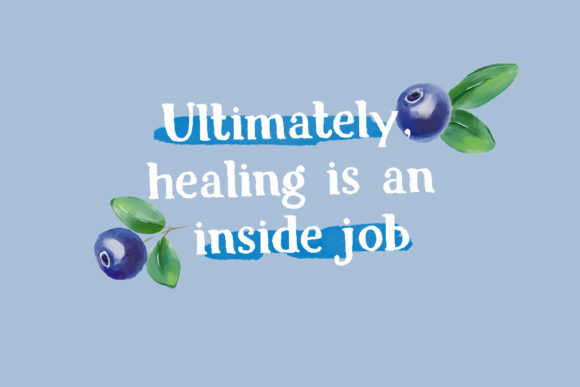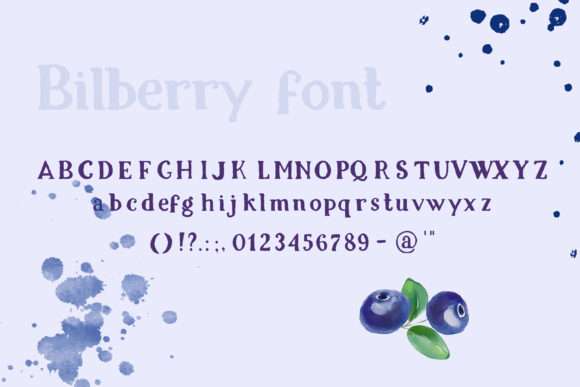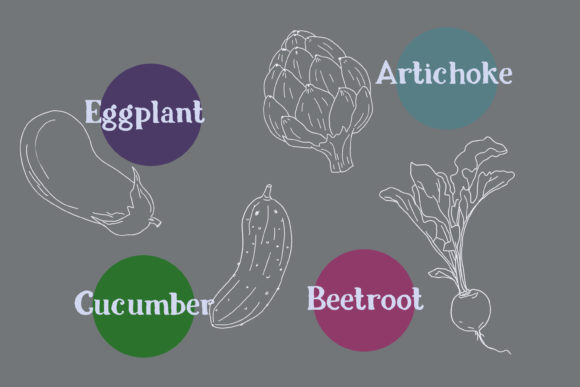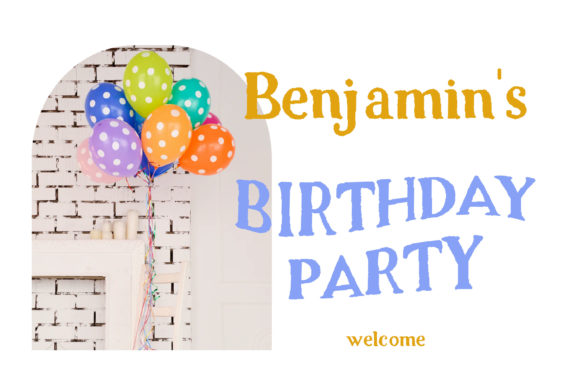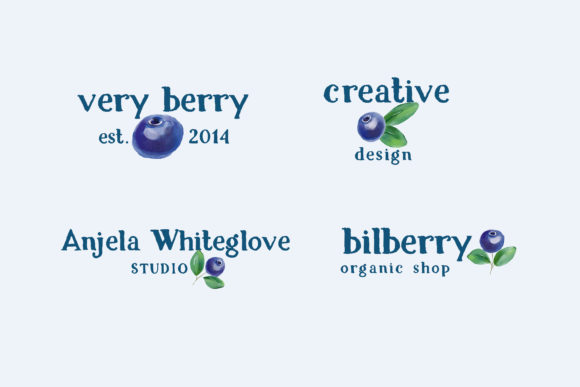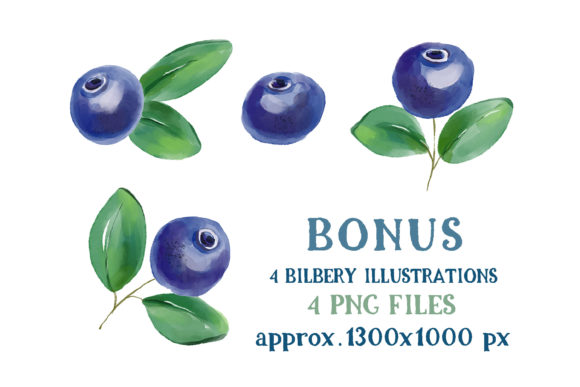
Bilberry Font: Elevate Your Designs with a Cool and Rough Textured Serif Font
In the world of typography, a font can make or break a design. It’s the perfect blend of form and function, conveying a message while evoking an emotional response. For designers and crafters looking to add a unique touch to their creations, Bilberry Font is an excellent choice. This cool and rough textured serif font is an incredible asset to any font library, capable of elevating any project to new heights.
What is Bilberry Font?
Bilberry Font is a serif font that boasts a distinctive, rough texture, giving it a charmingly imperfect feel. Its cool and rugged appearance makes it perfect for designs that require a touch of character and personality. Whether you’re working on a logo, heading, or body text, Bilberry Font is versatile enough to adapt to any topic or theme.
Key Features of Bilberry Font
- Rough Textured Appearance: Bilberry Font’s unique texture gives it a handmade, organic feel that’s perfect for designs that require a personal touch.
- Serif Style: The font’s serif style adds a touch of sophistication and elegance, making it suitable for a wide range of applications.
- Cool and Calming: Despite its rugged texture, Bilberry Font has a cool and calming effect, making it perfect for designs that require a soothing atmosphere.
- Highly Versatile: Bilberry Font can be used for a variety of projects, from logos and headings to body text and more.
Benefits of Using Bilberry Font
So, why choose Bilberry Font for your next project? Here are just a few benefits of using this amazing font:
- Adds Character to Your Designs: Bilberry Font’s unique texture and serif style add a touch of personality to any design, setting it apart from more generic fonts.
- Enhances Readability: Despite its rough texture, Bilberry Font is highly readable, making it perfect for body text and other applications where legibility is key.
- Perfect for Creative Projects: Bilberry Font is ideal for designers and crafters working on creative projects, such as logos, branding, and packaging.
- Easy to Pair with Other Fonts: Bilberry Font’s versatility makes it easy to pair with other fonts, allowing you to create stunning font combinations.
How to Use Bilberry Font in Your Designs
Ready to add Bilberry Font to your design arsenal? Here are a few tips on how to use it effectively:
- Use it as a Title Font: Bilberry Font’s bold and rugged texture makes it perfect for titles and headings.
- Pair it with a Sans-Serif Font: Combine Bilberry Font with a sans-serif font for a striking contrast that adds visual interest.
- Experiment with Font Sizes: Bilberry Font’s texture and serif style make it suitable for a range of font sizes, from large headings to smaller body text.
In conclusion, Bilberry Font is an incredible asset to any font library, offering a unique blend of texture, character, and versatility. Whether you’re a designer, crafter, or simply someone looking to add a touch of personality to your projects, Bilberry Font is an excellent choice. With its cool and rough textured serif style, this font is sure to elevate any creation and leave a lasting impression.